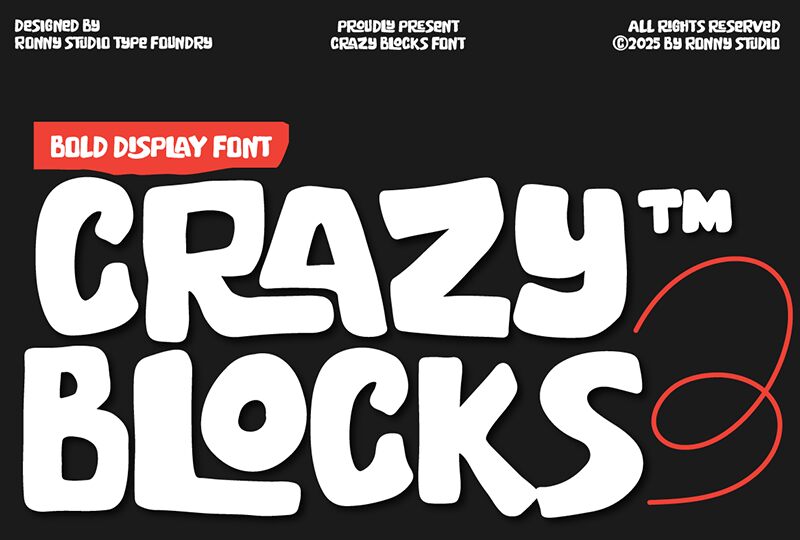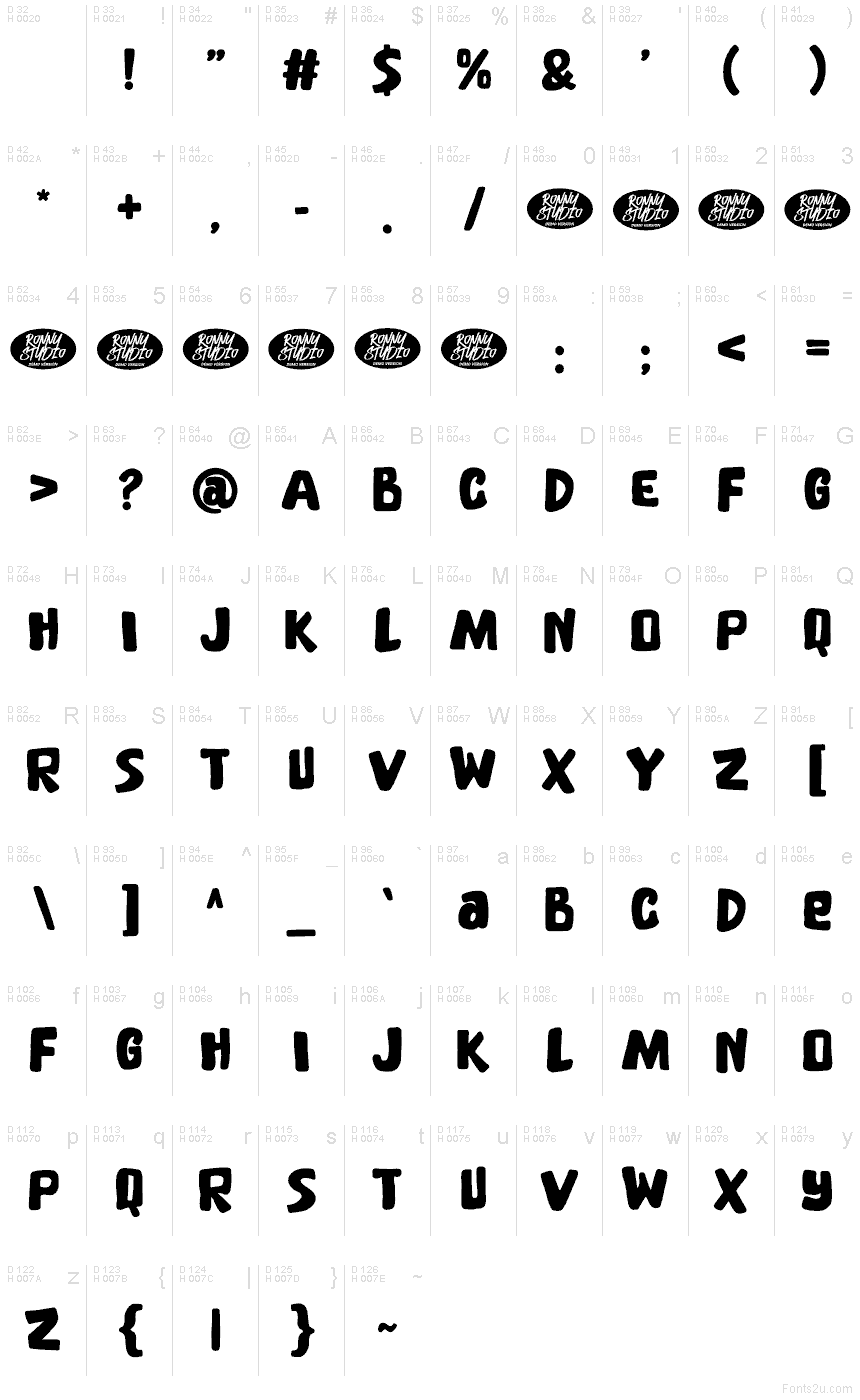
Crazy Blocks DEMO
Crazy Blocks font by Ronny Studio is a free cartoon display typeface. Its chunky, squishy letterforms look hand-squeezed from a marker, with soft corners and a playful wobble that keeps things bold but friendly. The rhythm is bouncy yet readable, so headlines pop without turning messy, and the inky heft holds up on bright backgrounds or busy artwork.
Using Crazy Blocks, you can bring instant fun to kids’ book covers, birthday invitations, toy packaging, game titles, classroom posters, and YouTube thumbnails. This free font thrives at big sizes and tight lines, delivering a punchy, sticker-like feel. Pair it with a clean rounded sans for body text to keep the message clear while the headline steals the smile.